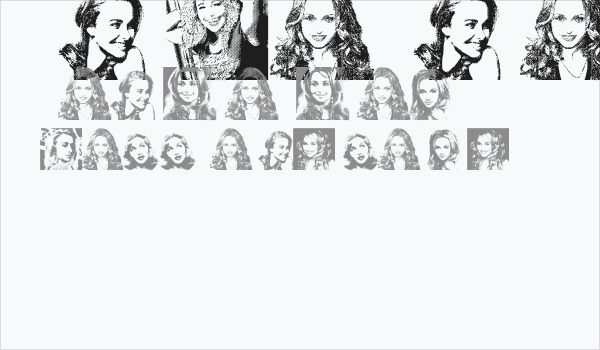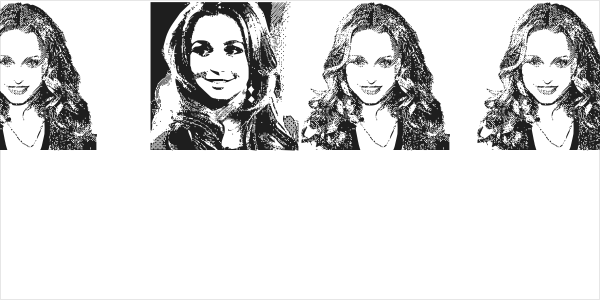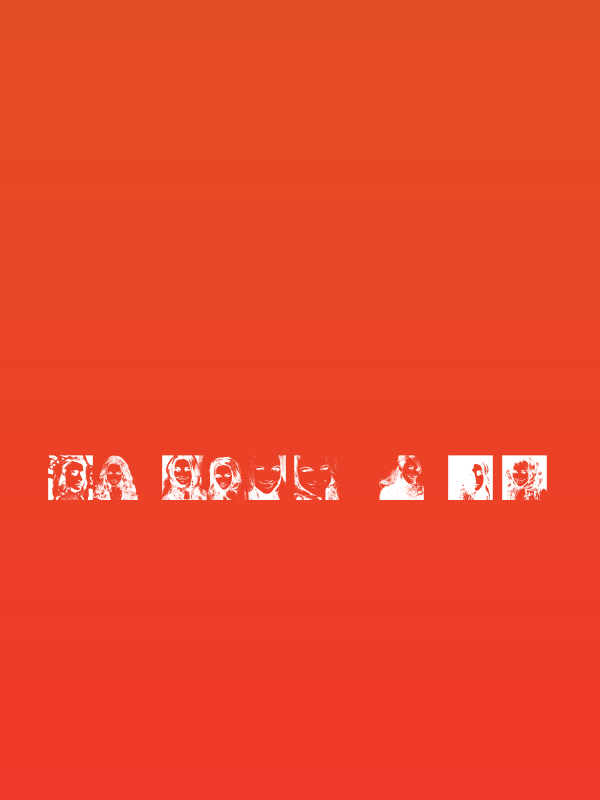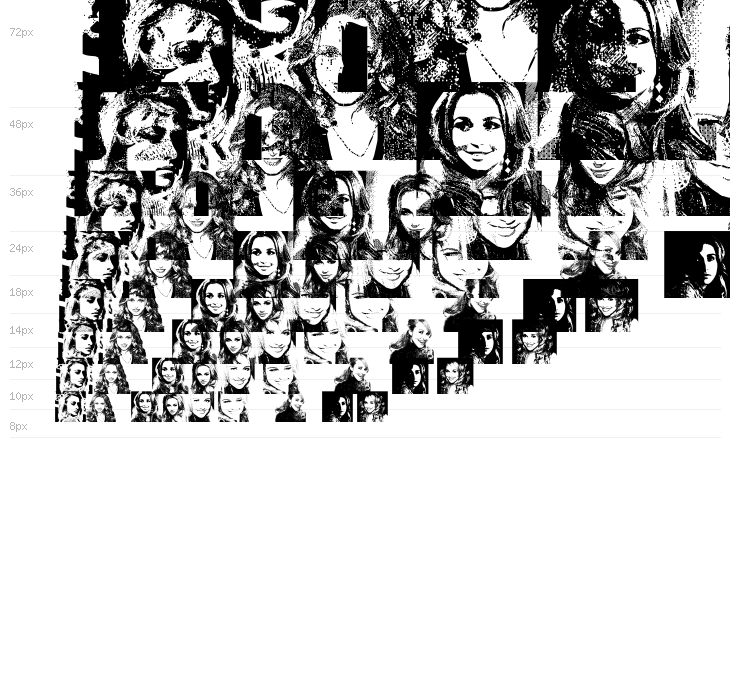
HaydenPanettiereBats demo Font
HaydenPanettiereBats demo Description
A decorative dingbat set featuring black-and-white, high-contrast portraits of a single individual in various poses and expressions, rendered in a square format for each character.
| Overall Style | Decorative, Pop Art-inspired |
| Use Case | Decorative elements, novelty projects, themed graphics |
| Proposed Projects | Posters, fan art, themed invitations, creative scrapbooking, decorative elements. |